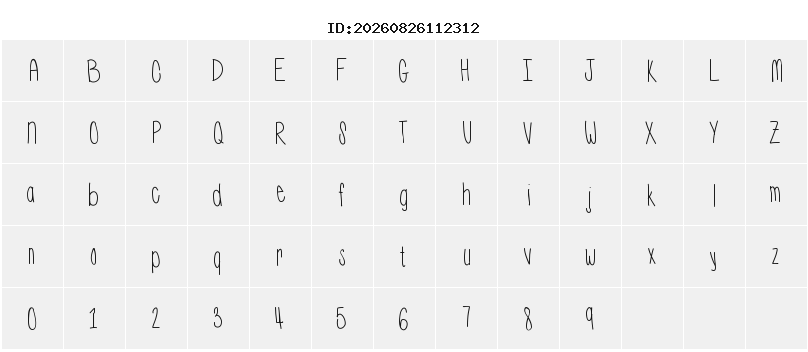
• Font Name: Wassup
• Full Font Name: Wassup
About Wassup.ttf
Wassup.ttf is a modern, elegant sans-serif font designed for ultimate readability and visual harmony. Perfect for branding, headlines, web design, and print materials.